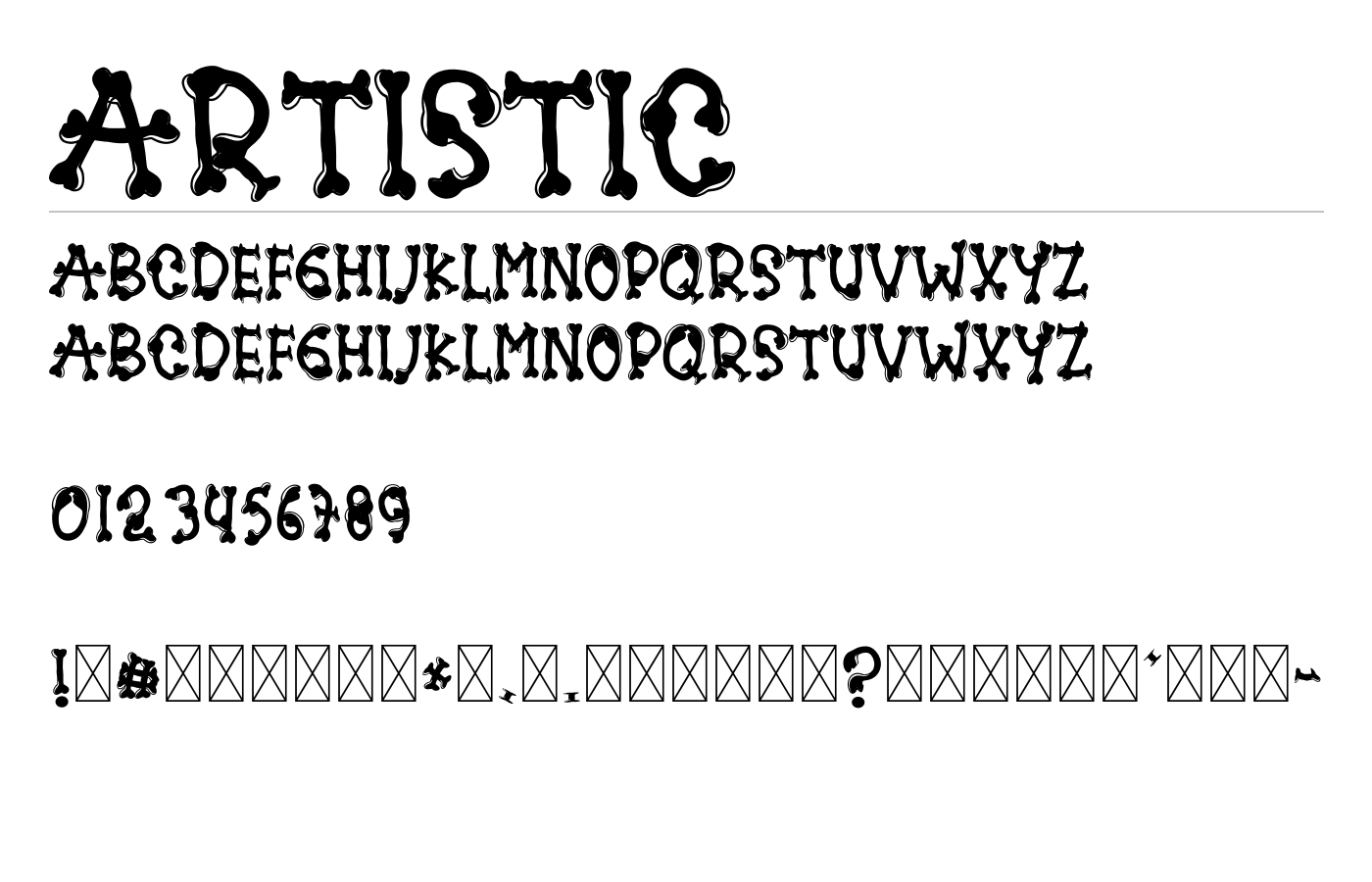
Artistic Font is a playful and quirky display typeface with bold, irregular strokes that resemble dripping paint or melting wax, giving it a distinctive, hand-crafted feel. Its uneven shapes and whimsical letterforms make it ideal for creative, fun projects such as posters, logos, and invitations where a unique, eye-catching style is desired. This font’s expressive personality adds a lively and informal touch, making it perfect for artistic and entertainment brands or casual themes.
Artistic Font
About Artistic Font
| Font family | Artistic Font |
| Designer | Nur Edi Prayitno |